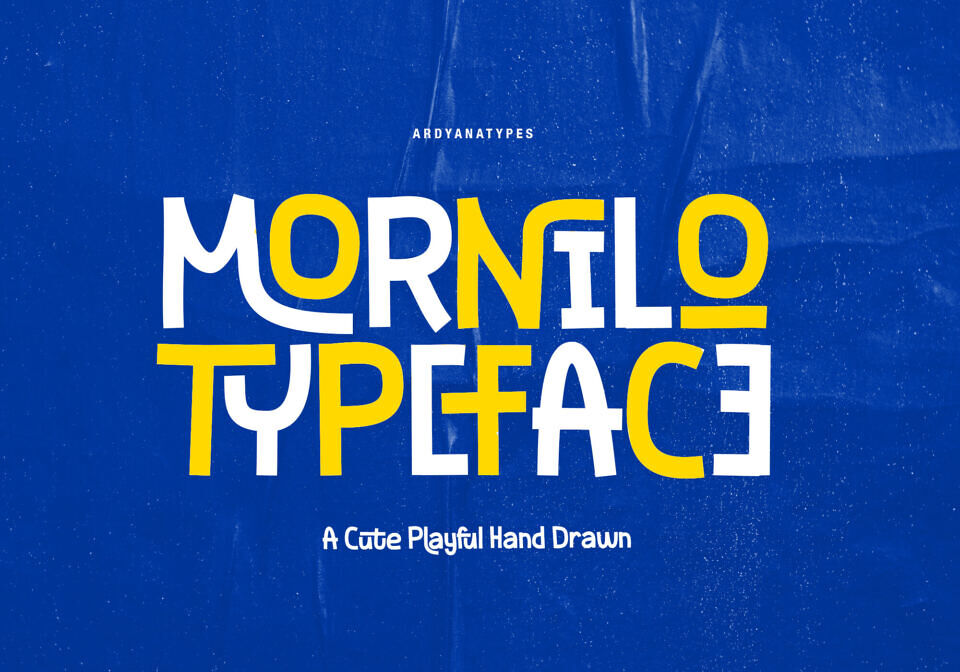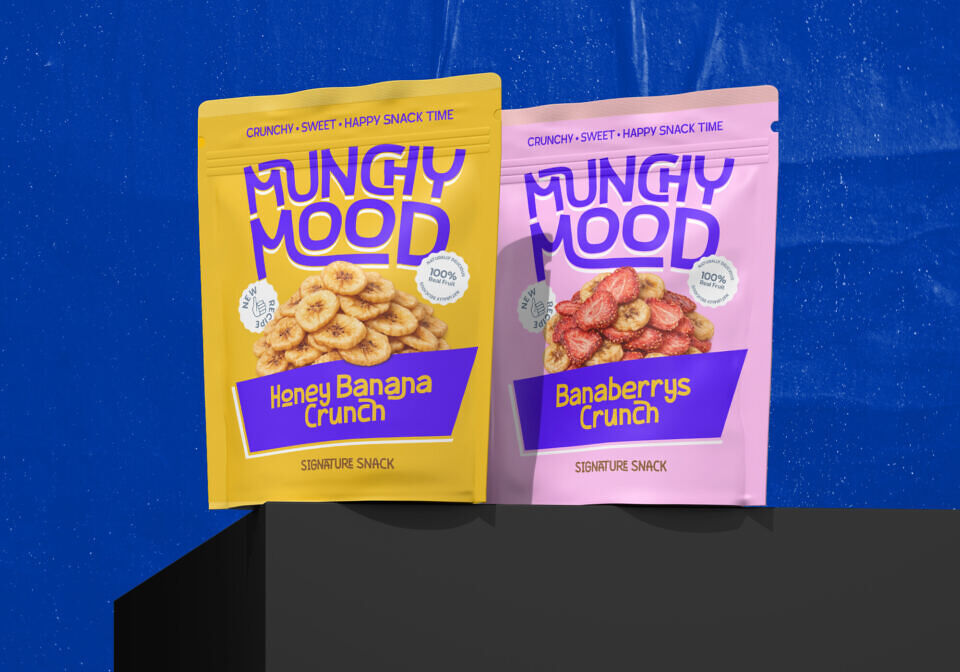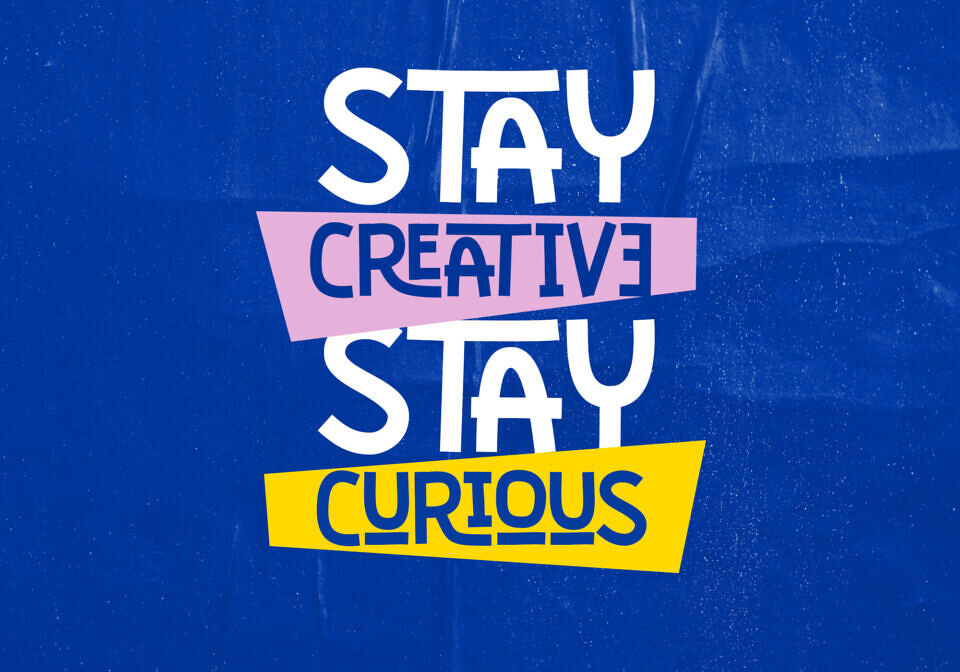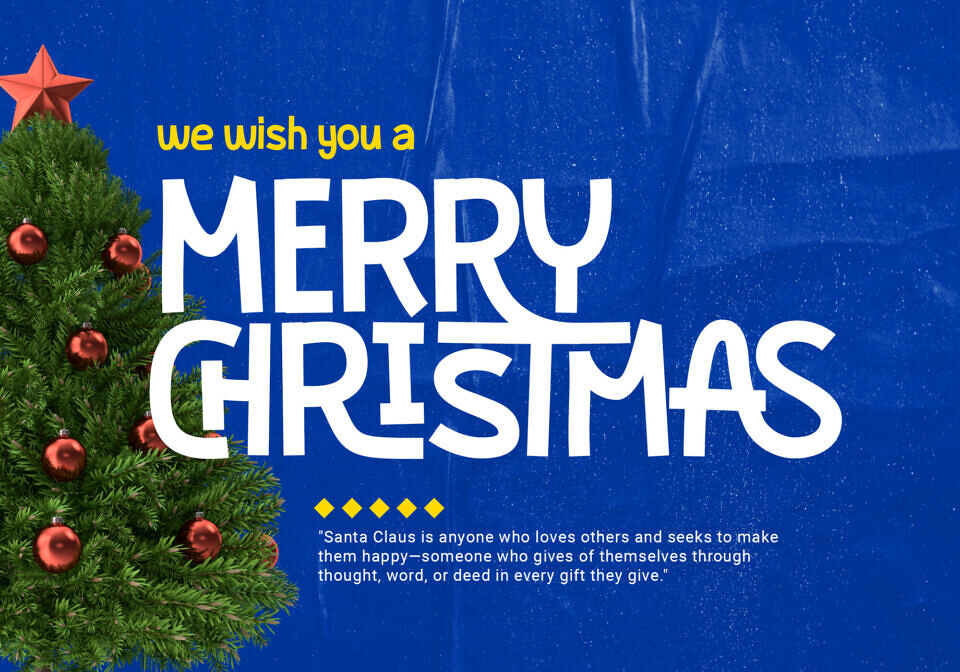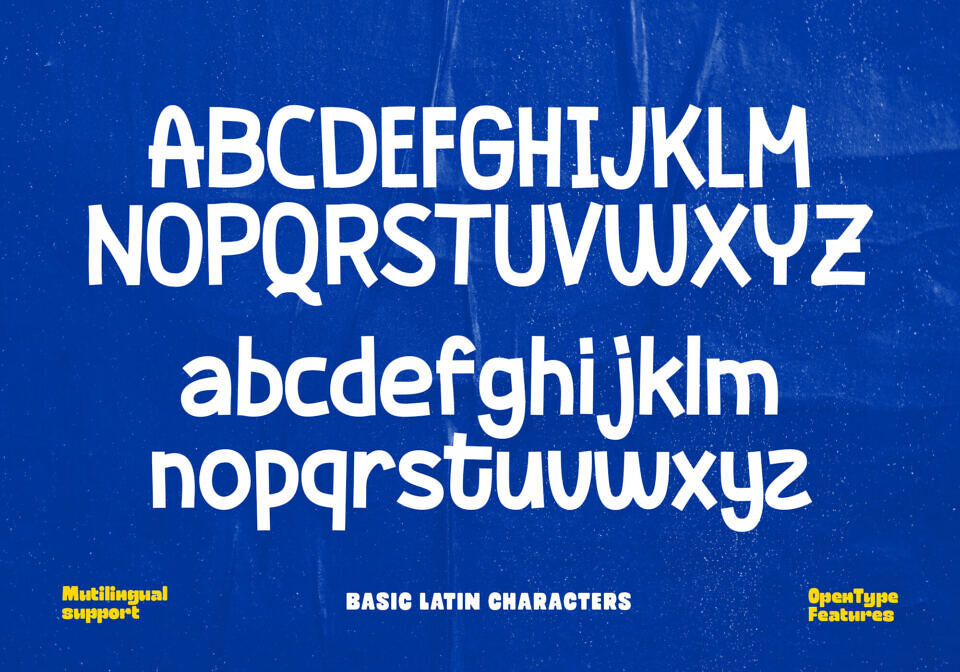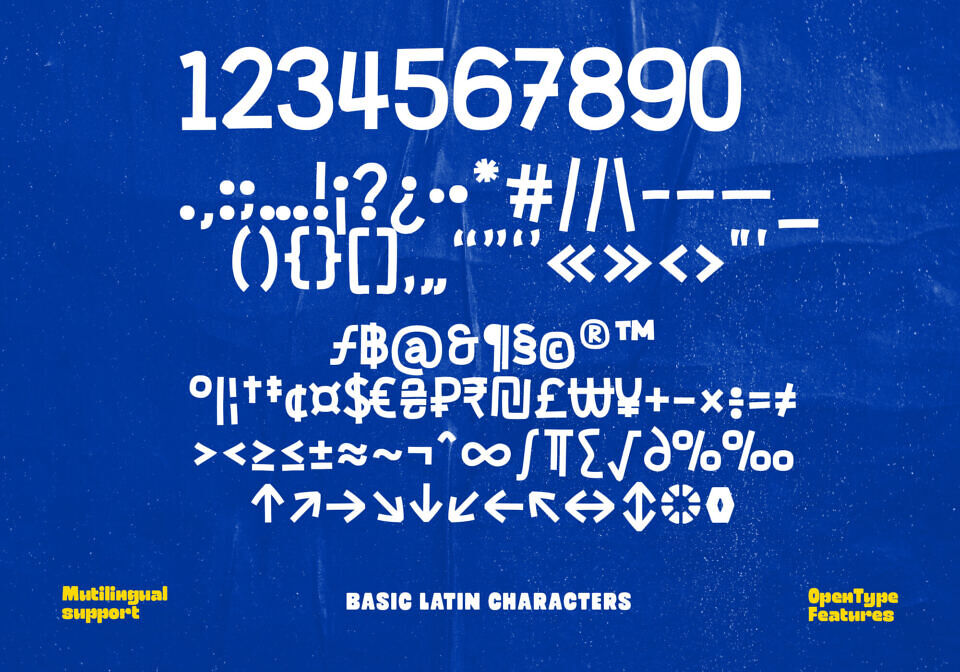
Mornilo Font
Mornilo Typeface is a cute and playful hand-drawn display font designed to bring joy, personality, and creativity into your designs. Inspired by spontaneous handwriting and cheerful doodles, this typeface captures the natural rhythm of hand lettering while maintaining excellent readability.
Each letter is crafted with unique curves and slightly irregular shapes, giving the font a lively and friendly character. The playful structure makes it perfect for designs that need warmth, fun, and a touch of creativity. Whether you’re designing for children’s products, fun brands, creative posters, or digital content, Mornilo Typeface will add a lively personality that stands out.